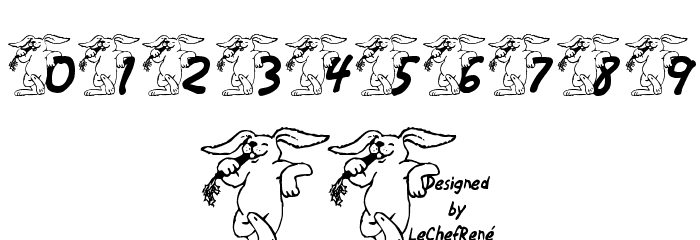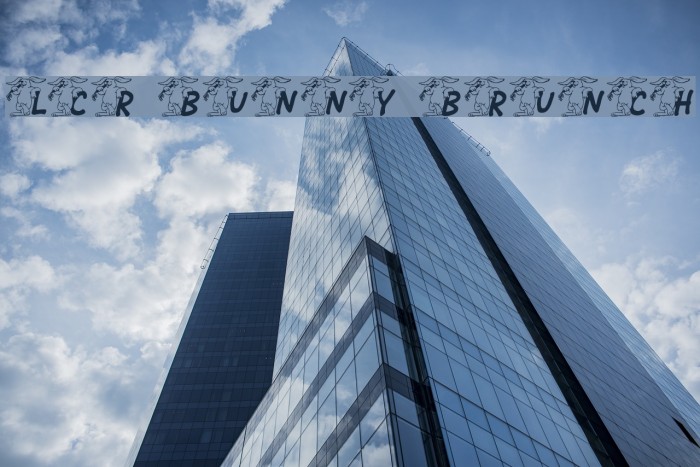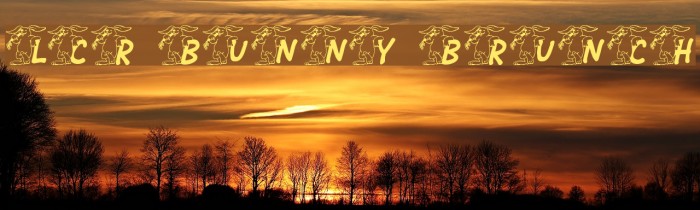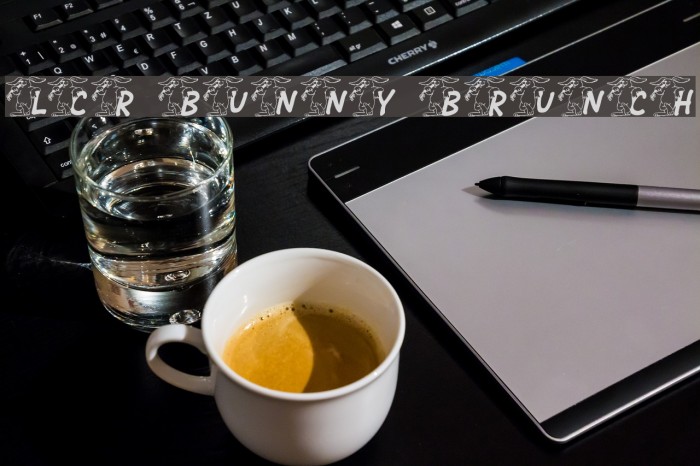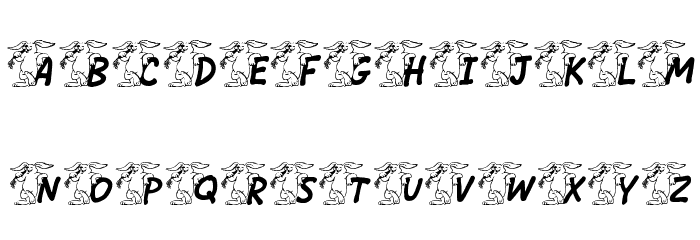
LCR Bunny Brunch Font
LCR Bunny Brunch Description
This playful and whimsical font features each character accompanied by a charming bunny illustration, adding a unique and fun element to the design. The letters are bold and slightly irregular, giving them a hand-drawn feel that complements the cartoonish style of the bunnies. The font is highly decorative, making it ideal for projects that require a lighthearted and engaging aesthetic. The combination of bold characters and detailed illustrations makes it stand out, perfect for children's books, playful invitations, or themed event materials.
A whimsical font with bold letters and playful bunny illustrations from Uncategorized fonts.
- Proposed Projects: Ideal for children's books, playful invitations, themed event materials, and any project needing a fun and engaging aesthetic.
- Overall Style: Playful, Whimsical, Decorative
- Use Case: Headlines, Logos, Decorative Text